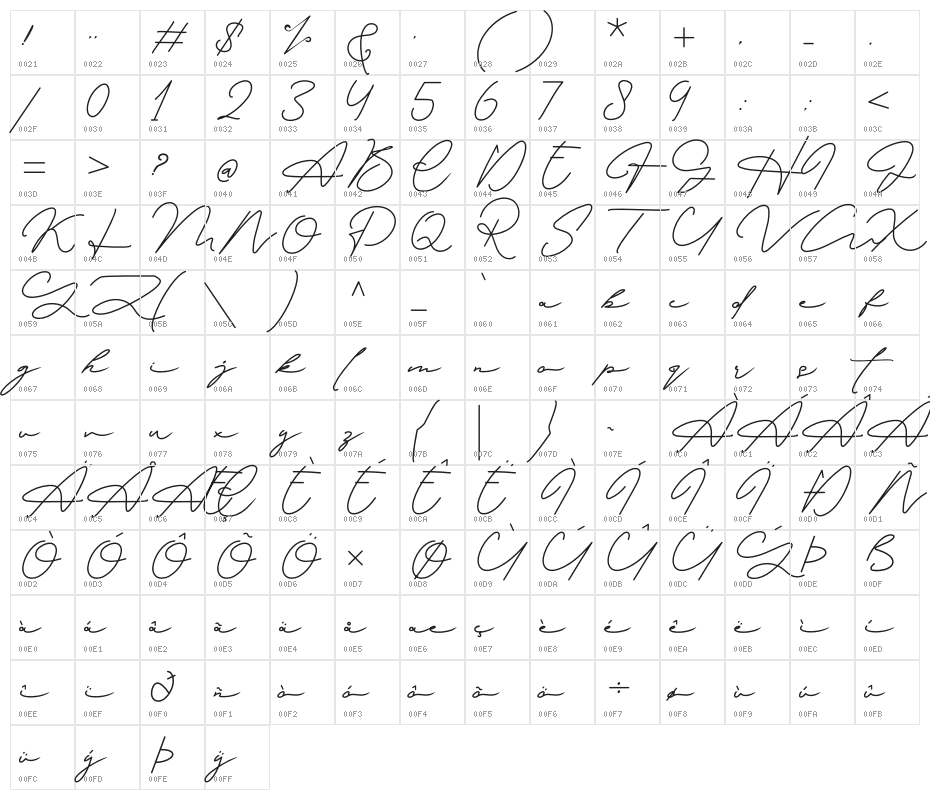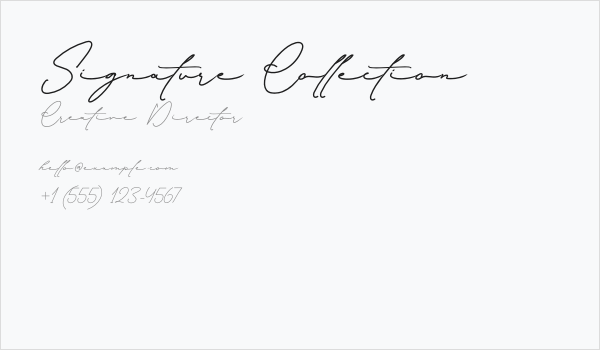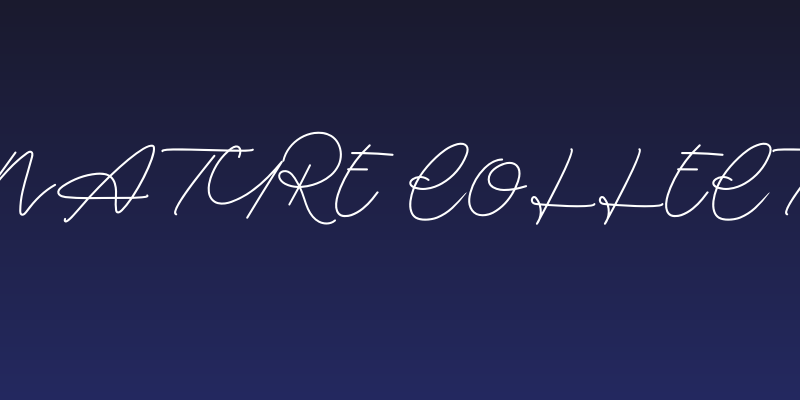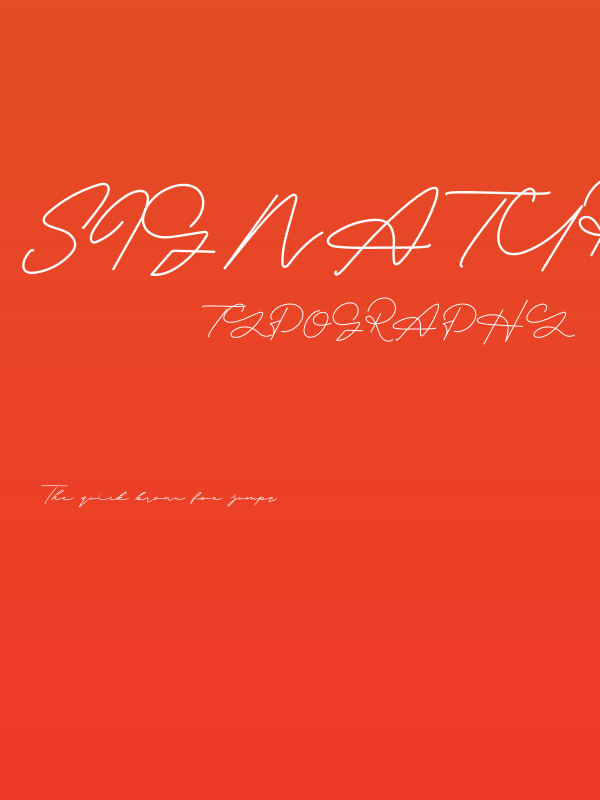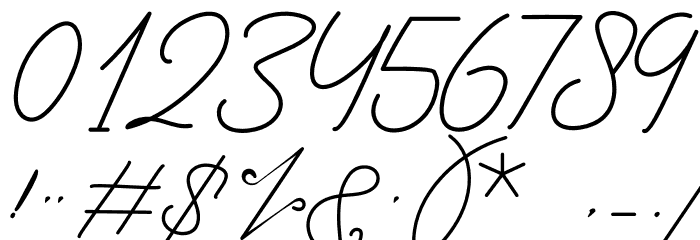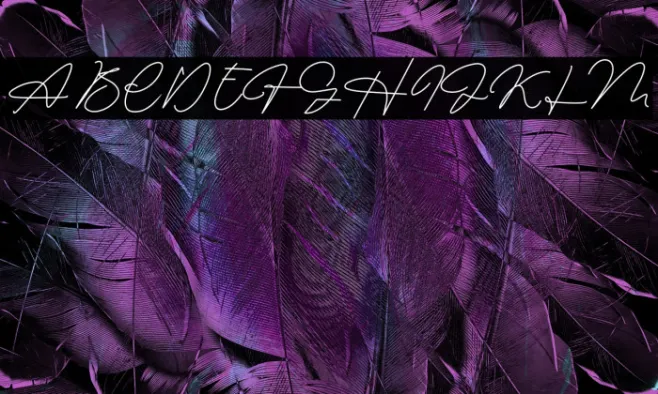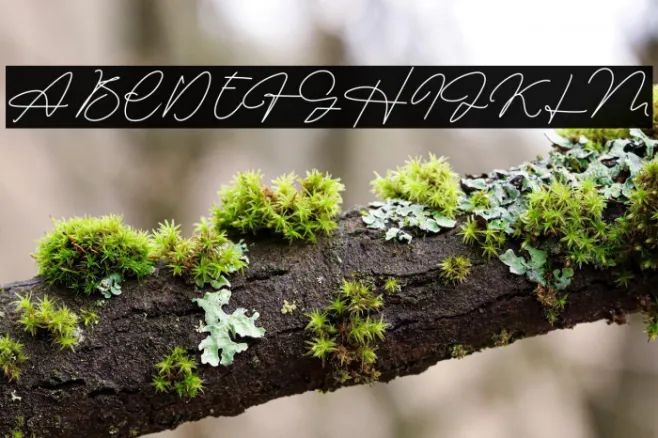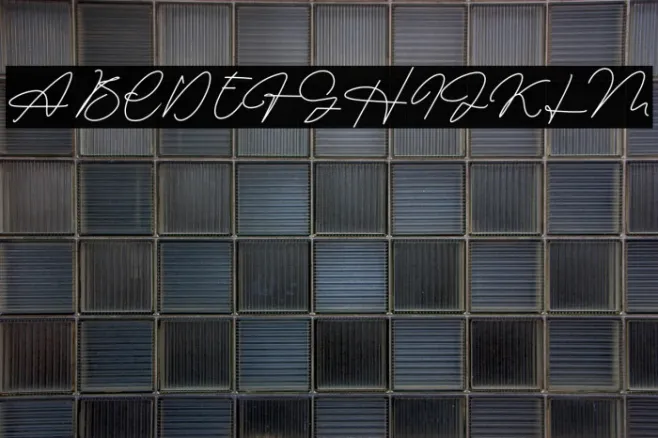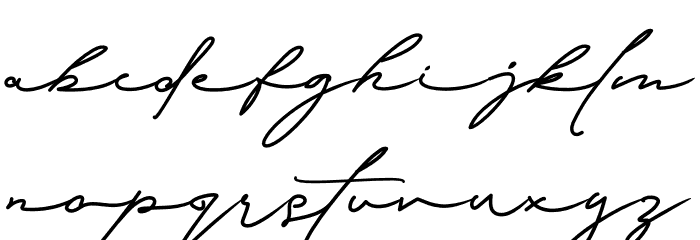
Signature Collection Font
Signature Collection Description
This elegant script font exudes a sense of sophistication and fluidity, reminiscent of a personal handwritten signature. The characters are connected with smooth, flowing lines, giving it a cohesive and continuous appearance. The uppercase letters are slightly more elaborate, with graceful loops and curves, while the lowercase letters maintain a consistent rhythm and style. The numerals and special characters are crafted with the same attention to detail, ensuring a harmonious look across all elements. This font is perfect for adding a personal touch to any project, evoking a sense of elegance and refinement.